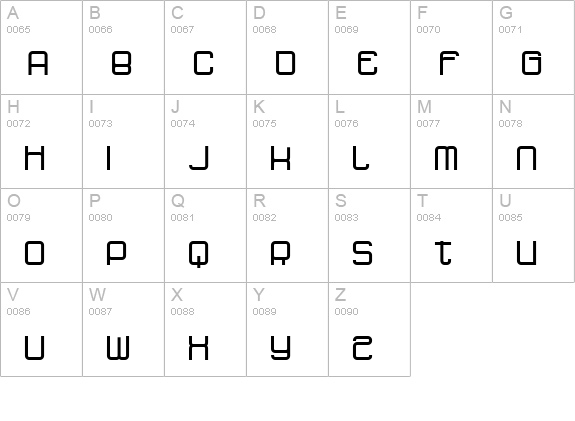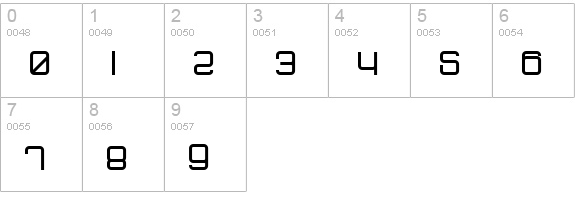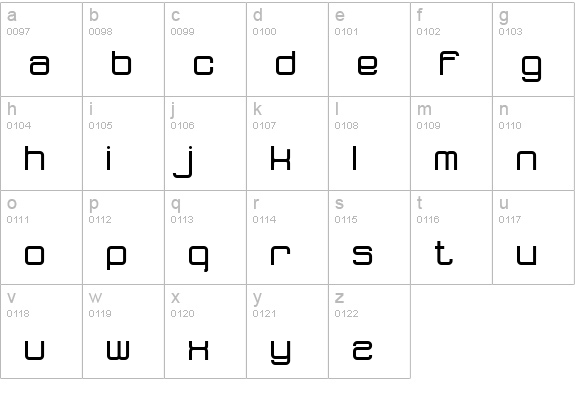
dopenakedfoul Font Details
Dopenakedfoul font is a bold and expressive typeface that exudes a sense of edgy sophistication. With its sleek lines and unique character shapes, this font is perfect for making a statement in your design projects. Whether you're looking to add a touch of modern flair or a rebellious edge, dopenakedfoul font is sure to catch the eye. Best of all, dopenakedfoul font is completely free to download at FontsMarket.com. This means you can easily incorporate this striking font into your creative endeavors without breaking the bank. So go ahead, unleash your creativity and make a bold statement with dopenakedfoul font today!